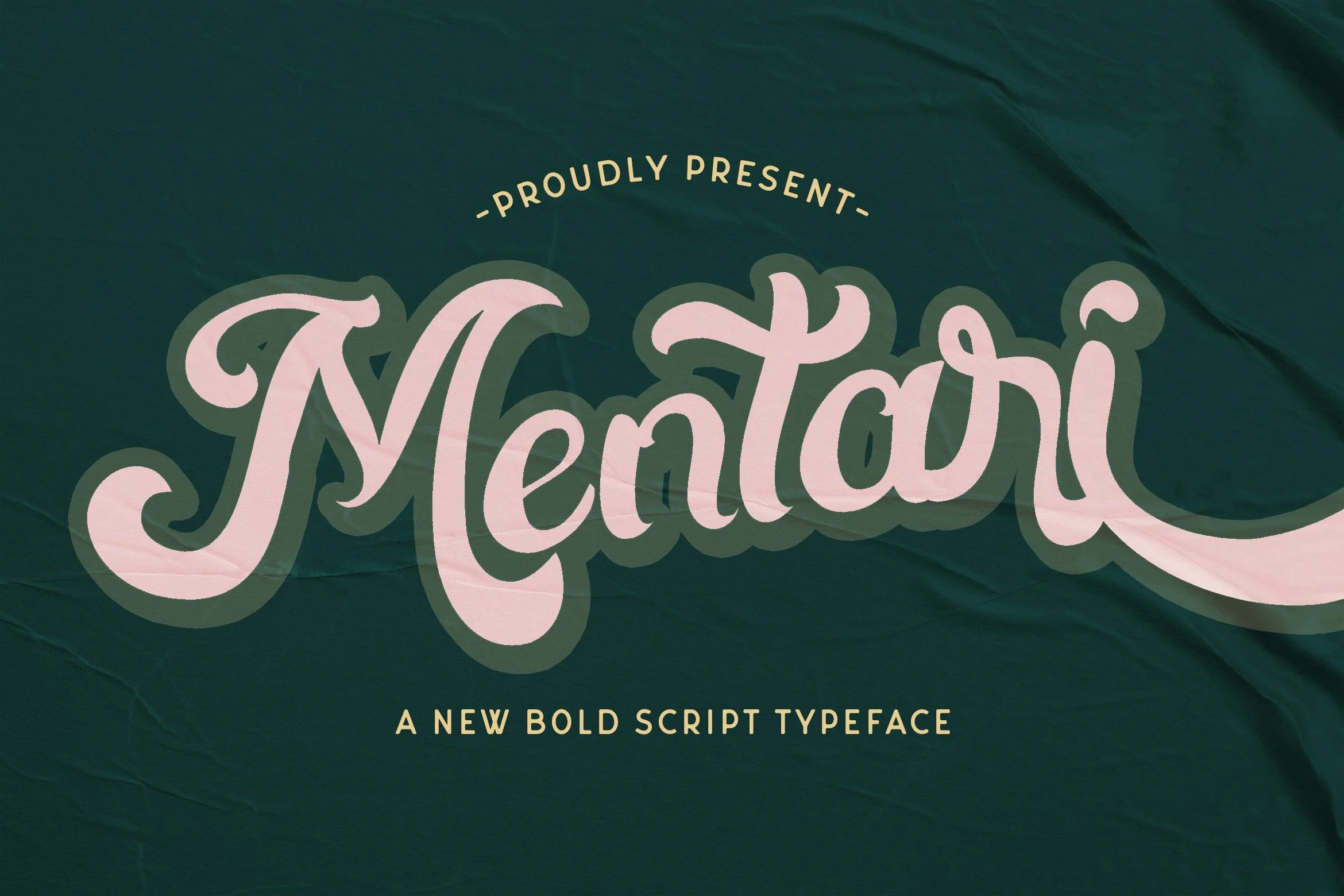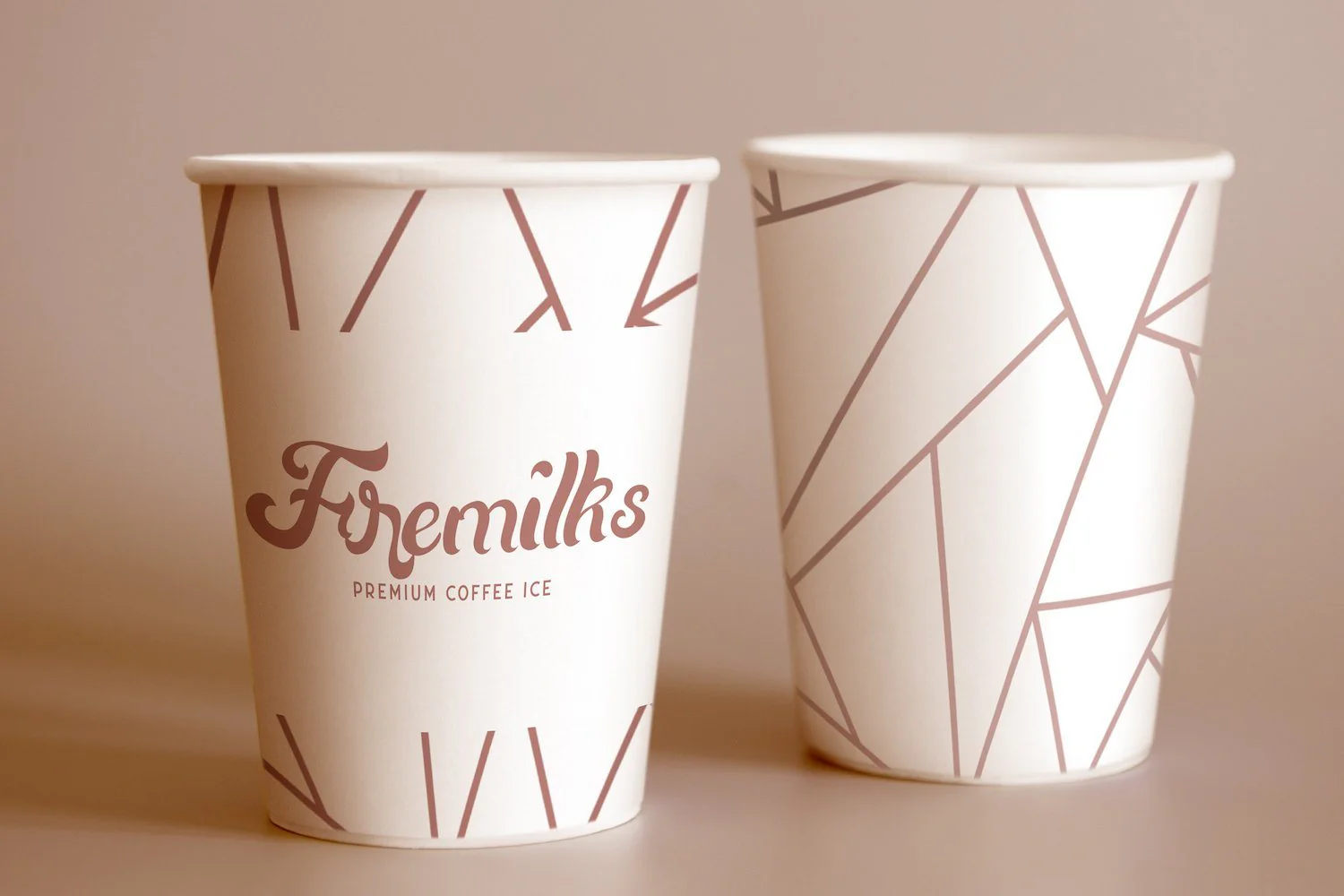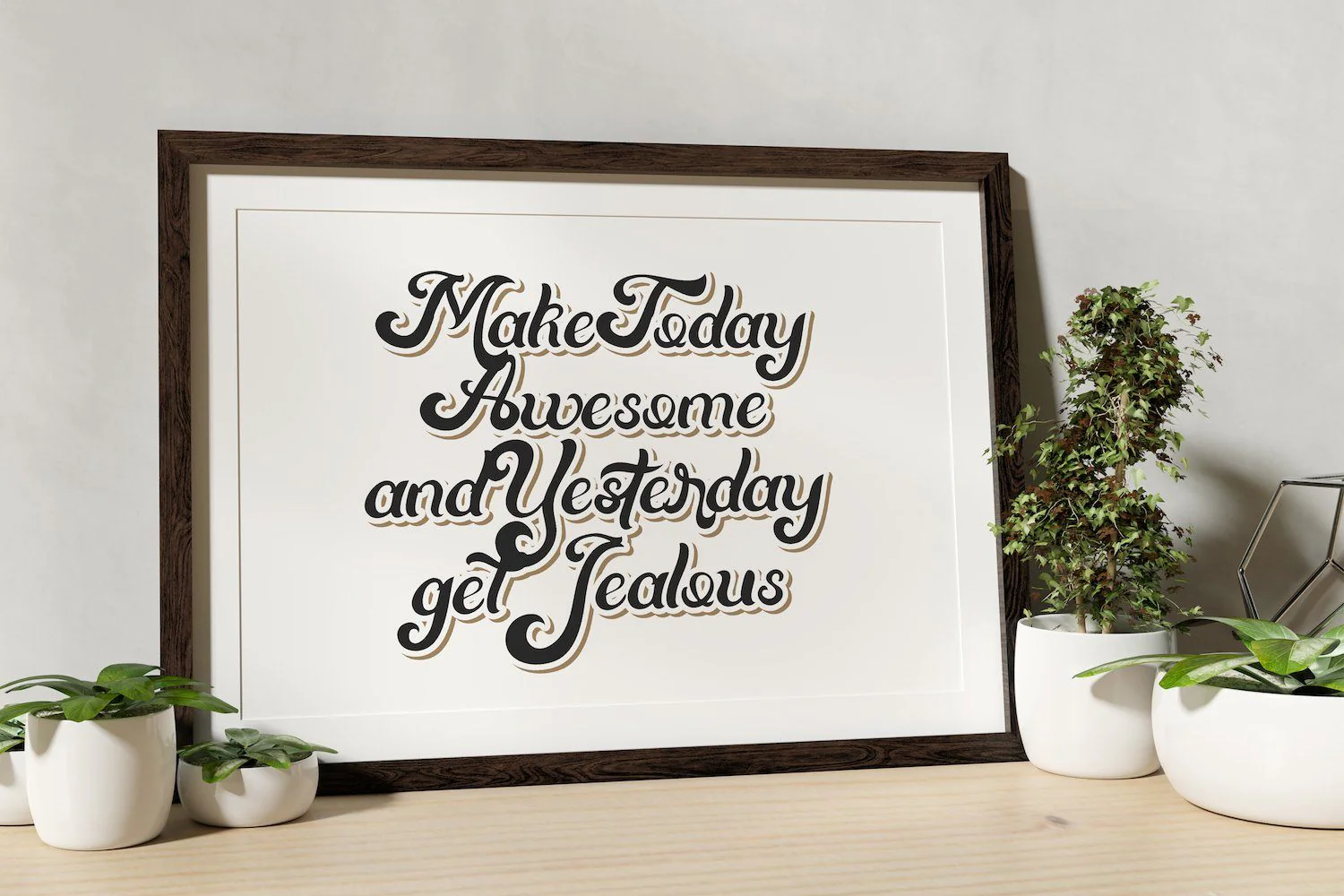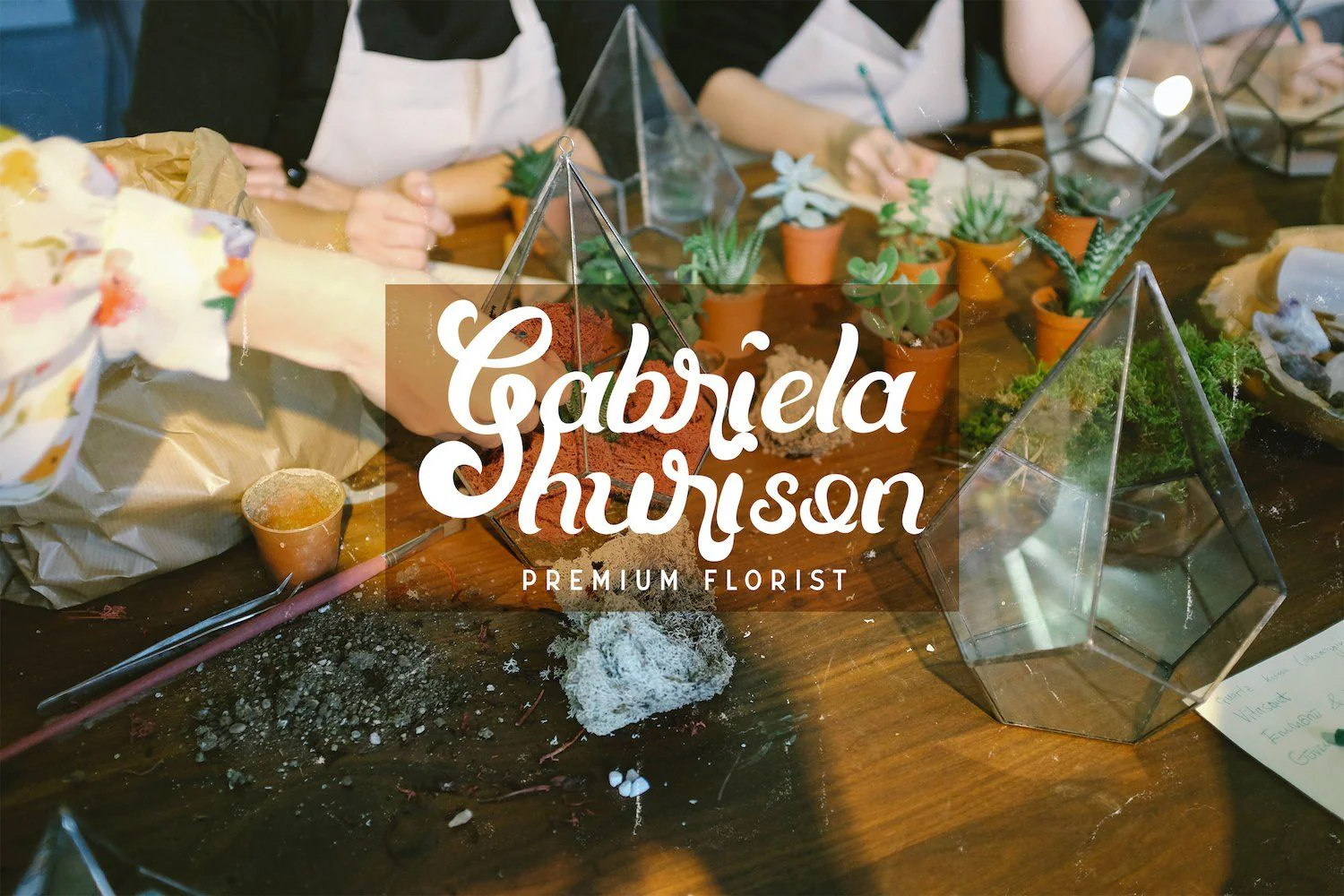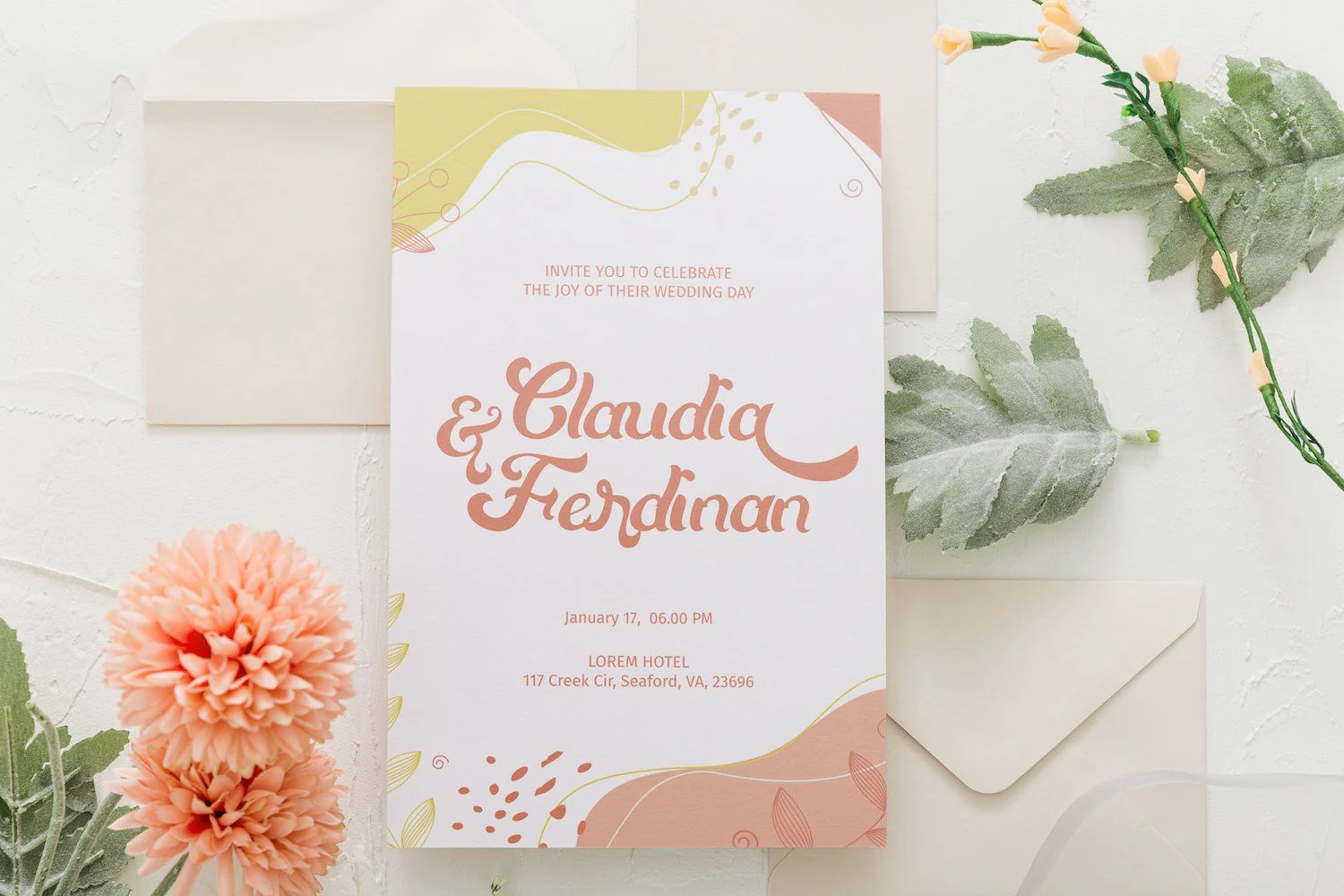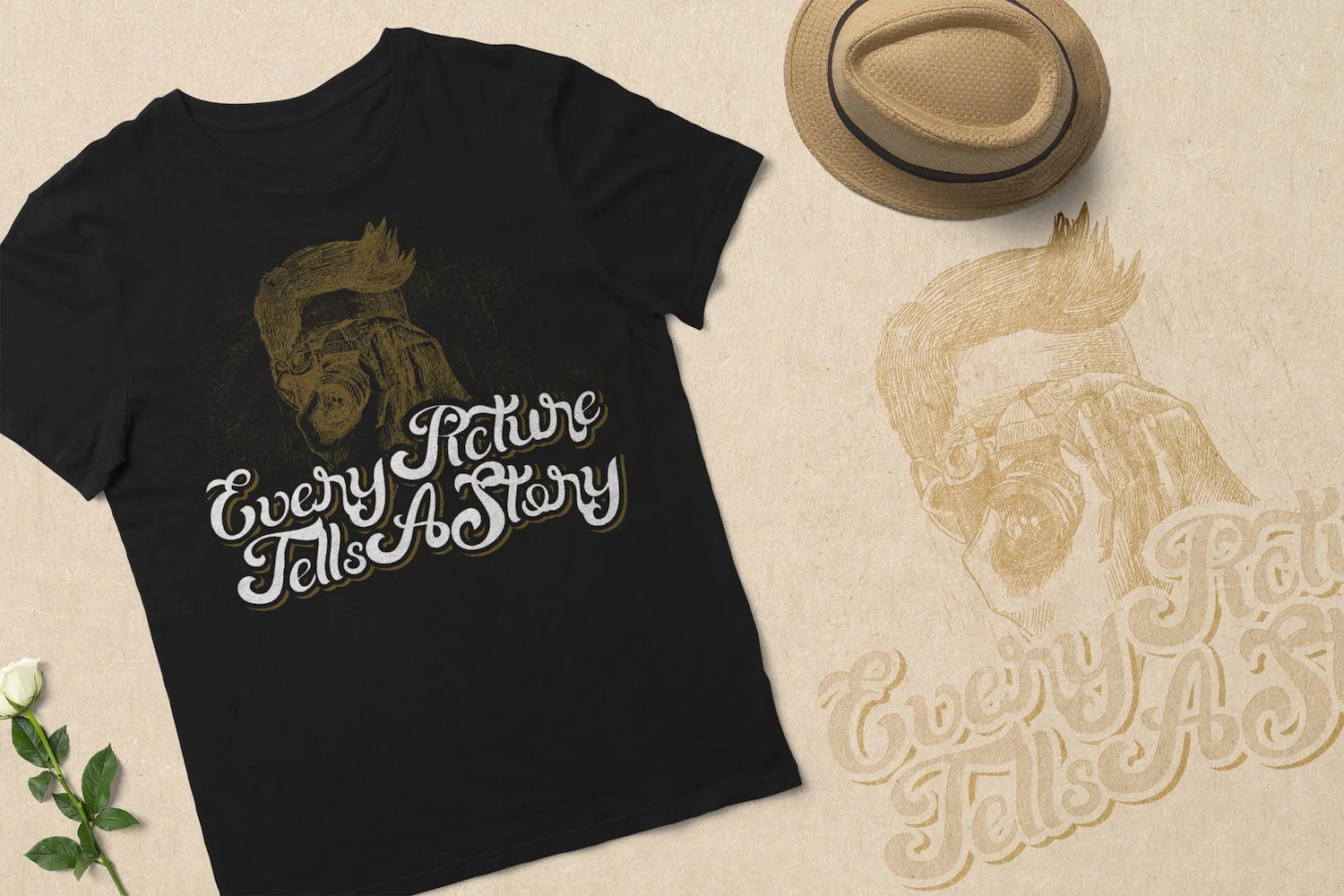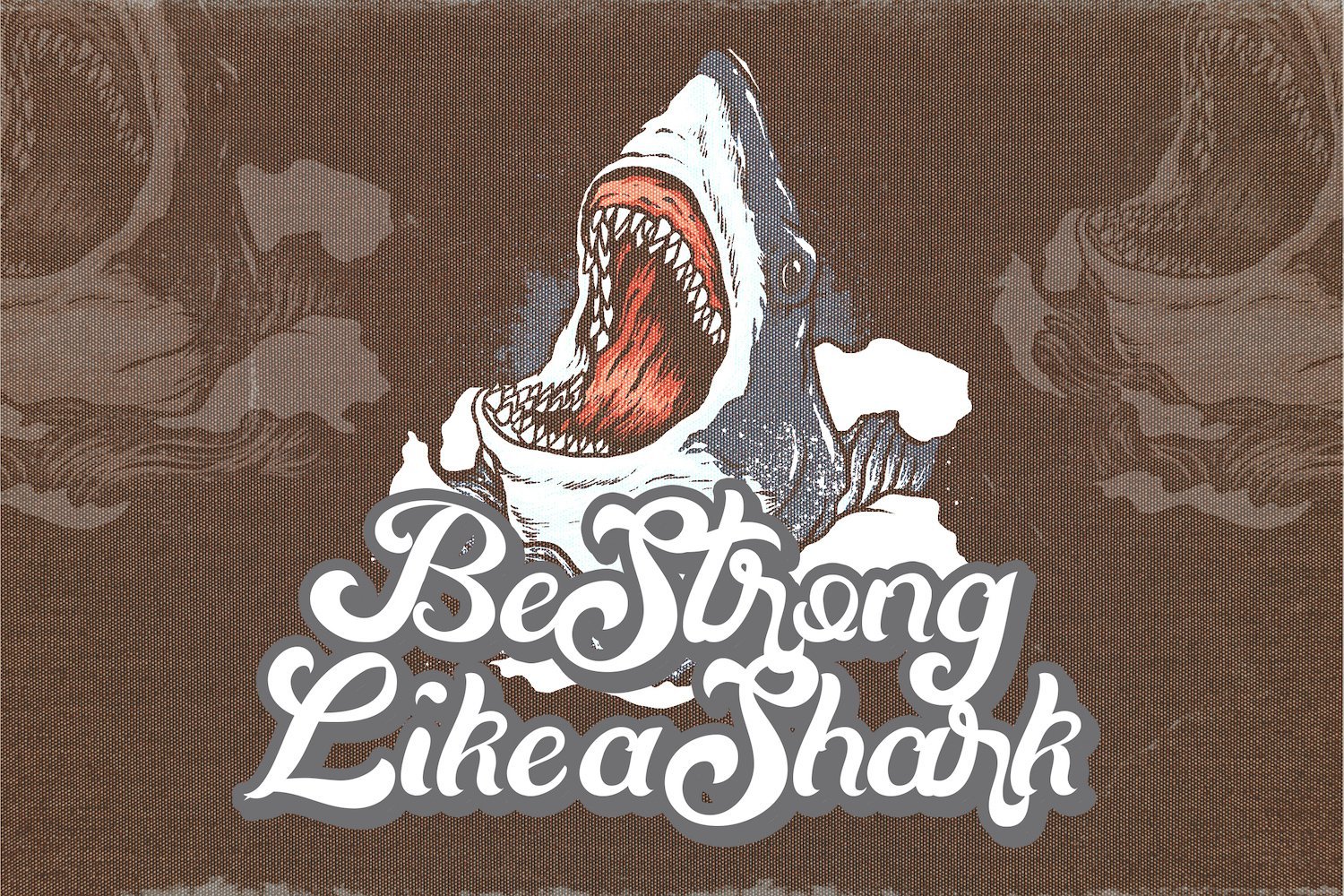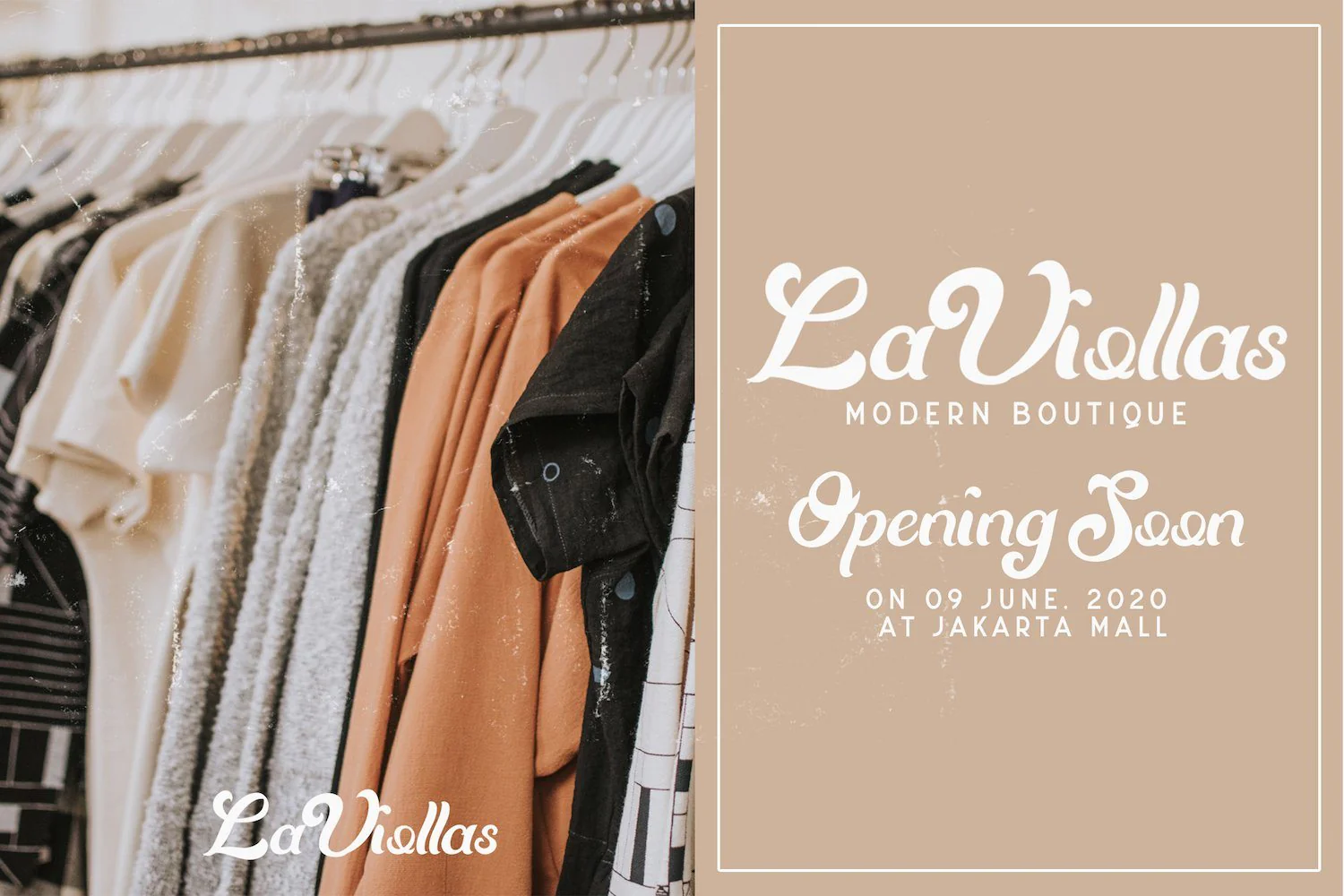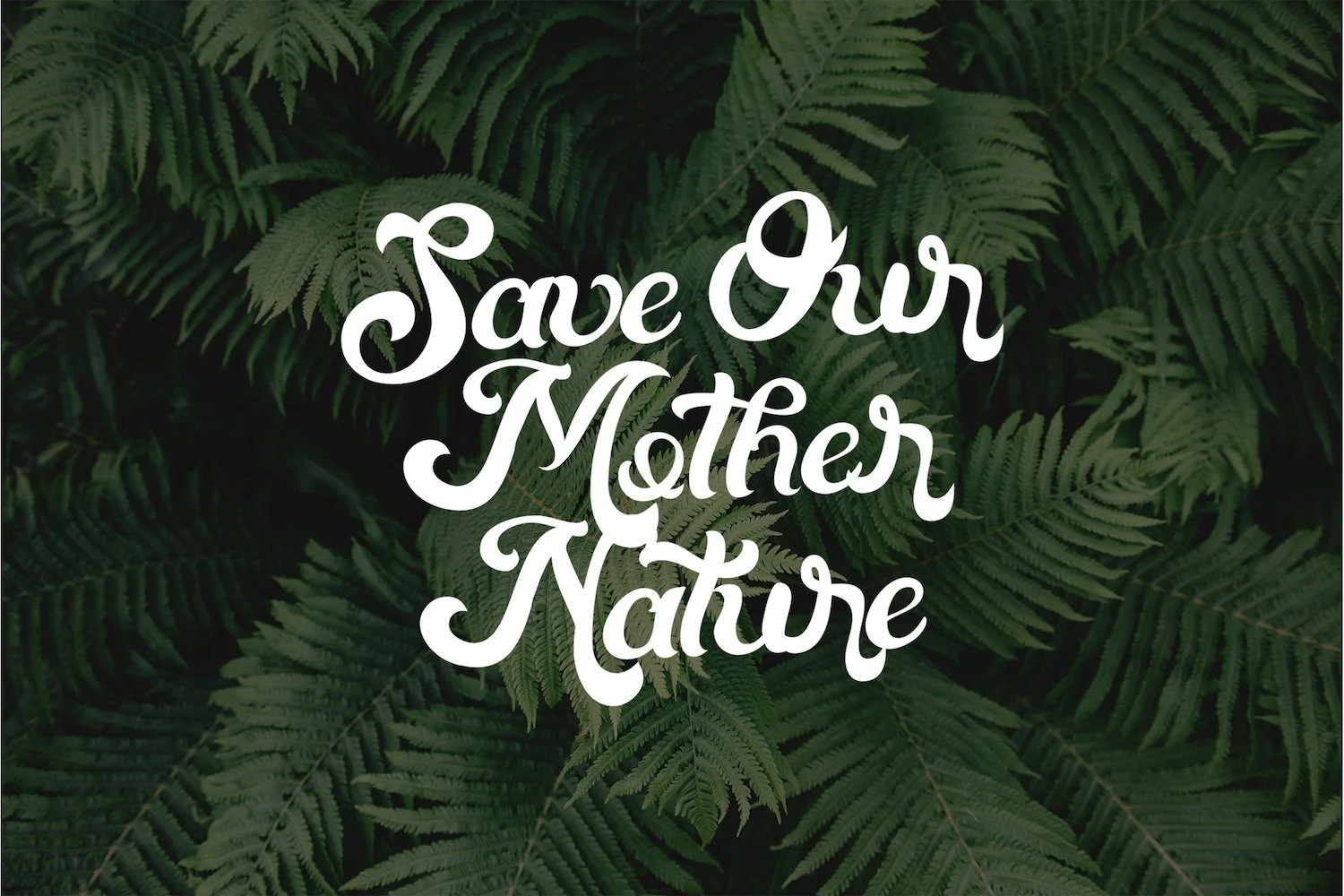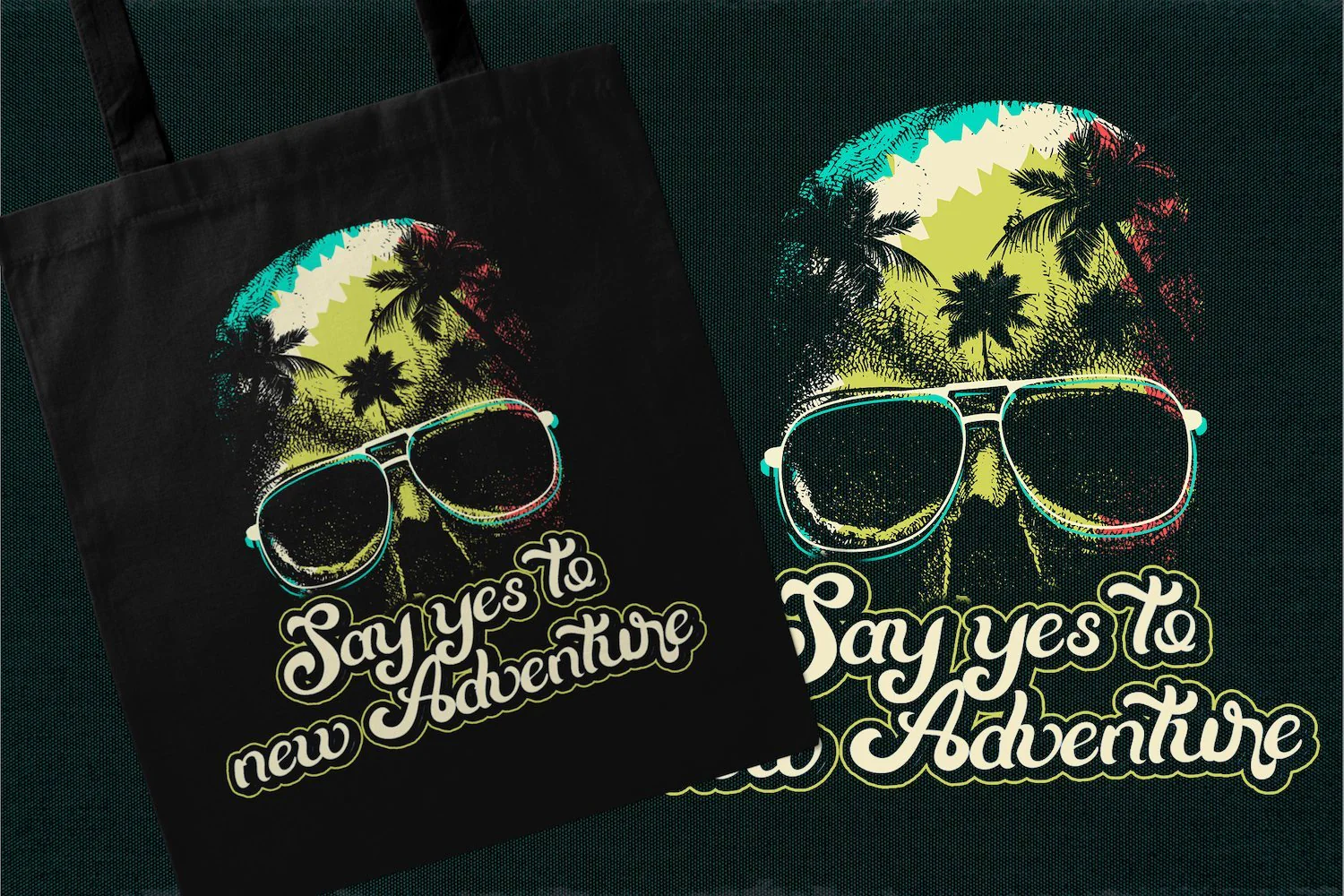
Mentari - Bold Script Font
Introducing Mentari - Bold Script Font
Mentari is a cute and bold script font. It’s features cute characters and a vintage style that makes it perfect for branding, stationery, quotes and much more!
Introducing Mentari - Bold Script Font
Mentari is a cute and bold script font. It’s features cute characters and a vintage style that makes it perfect for branding, stationery, quotes and much more!